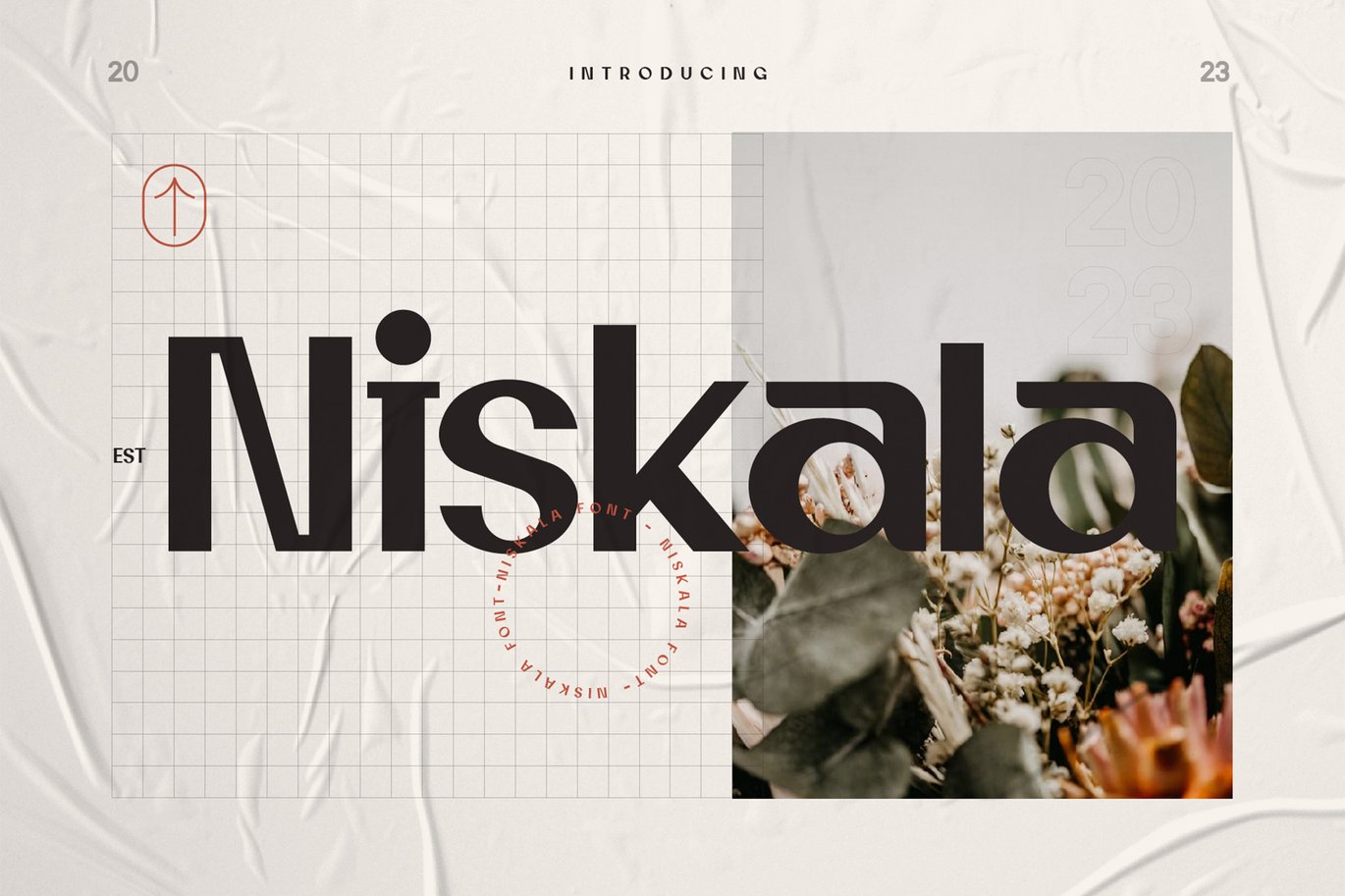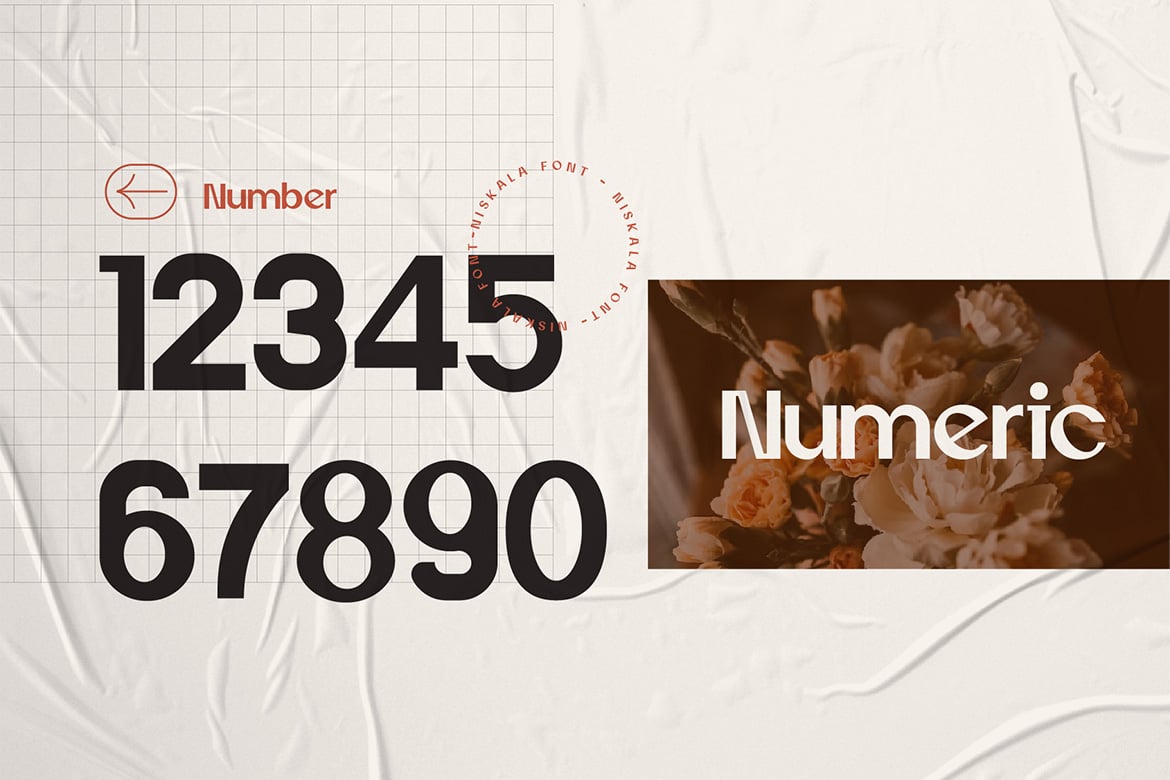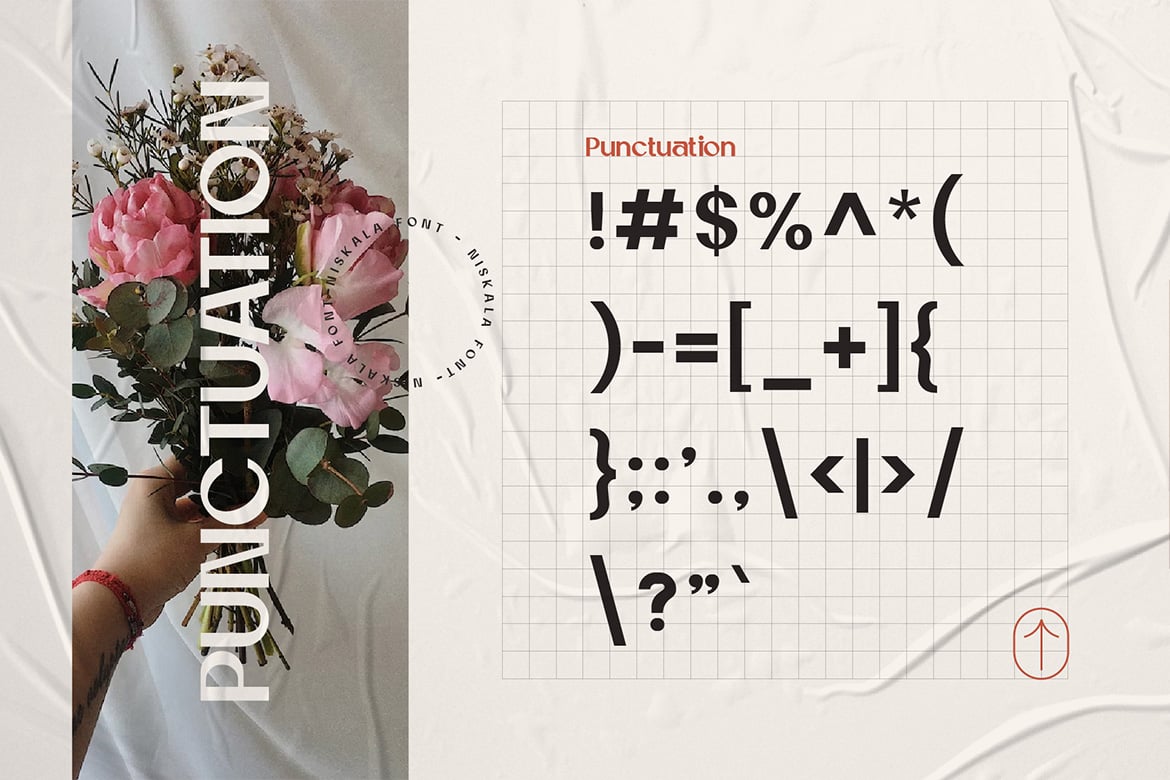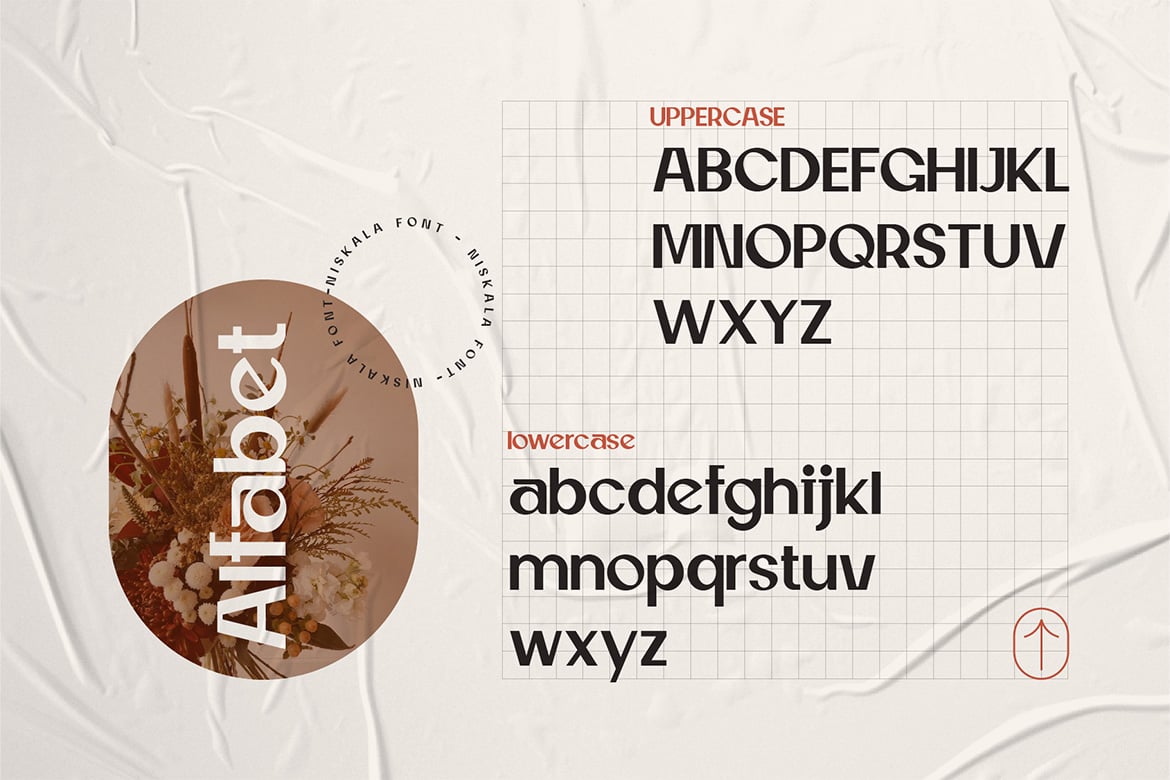
Niskala – Elegant Font
Niskala Font – According to market demand, fonts are more likely to be modern fonts, so I decided to make this serif font that you have in mind. Niskala font is a modern style hoping to become a market favorite. We keep this font looking elegant, classy, easy to read, stylish, attractive, and easy to use. Niskala Font is a great choice for beauty brands, magazines, newspapers, books, brand names, branding, brands, quotes, album covers, and other projects. Niskala fonts are here to take your designs to the next level.
Font Features:
- Standard uppercase and lowercase letters
- Numeric and punctuation